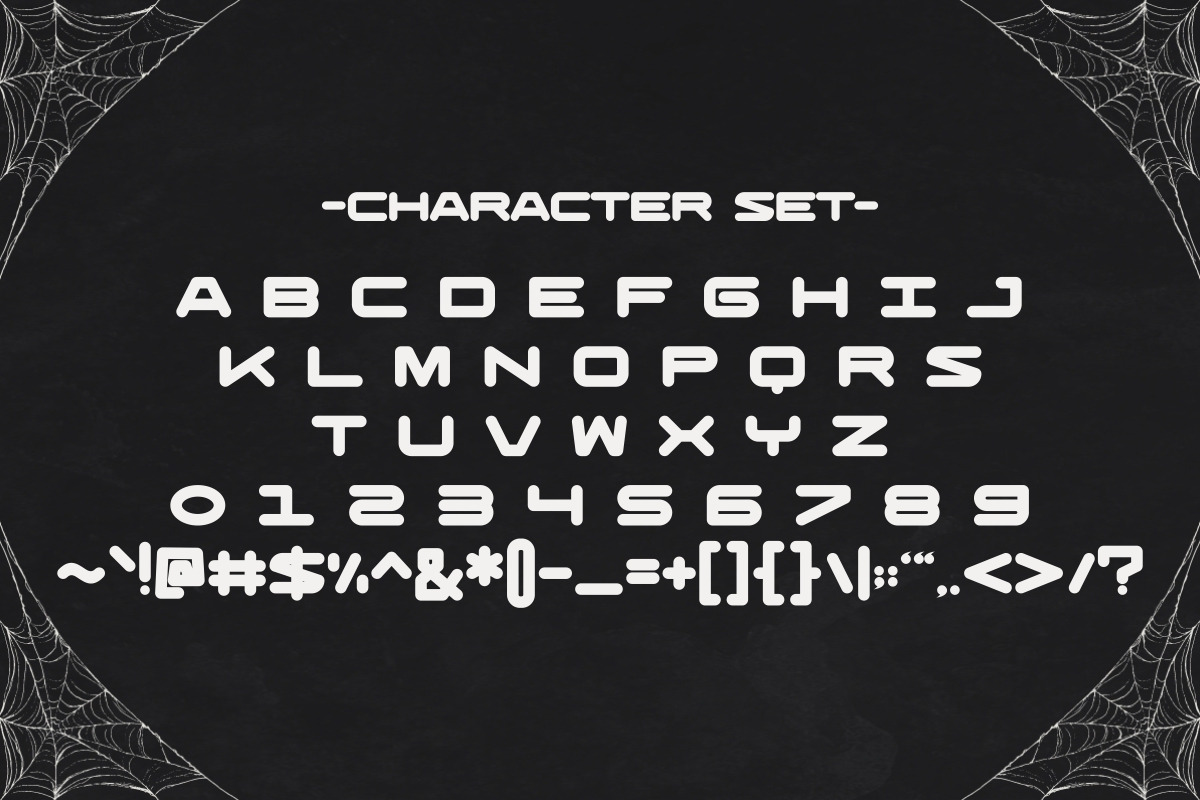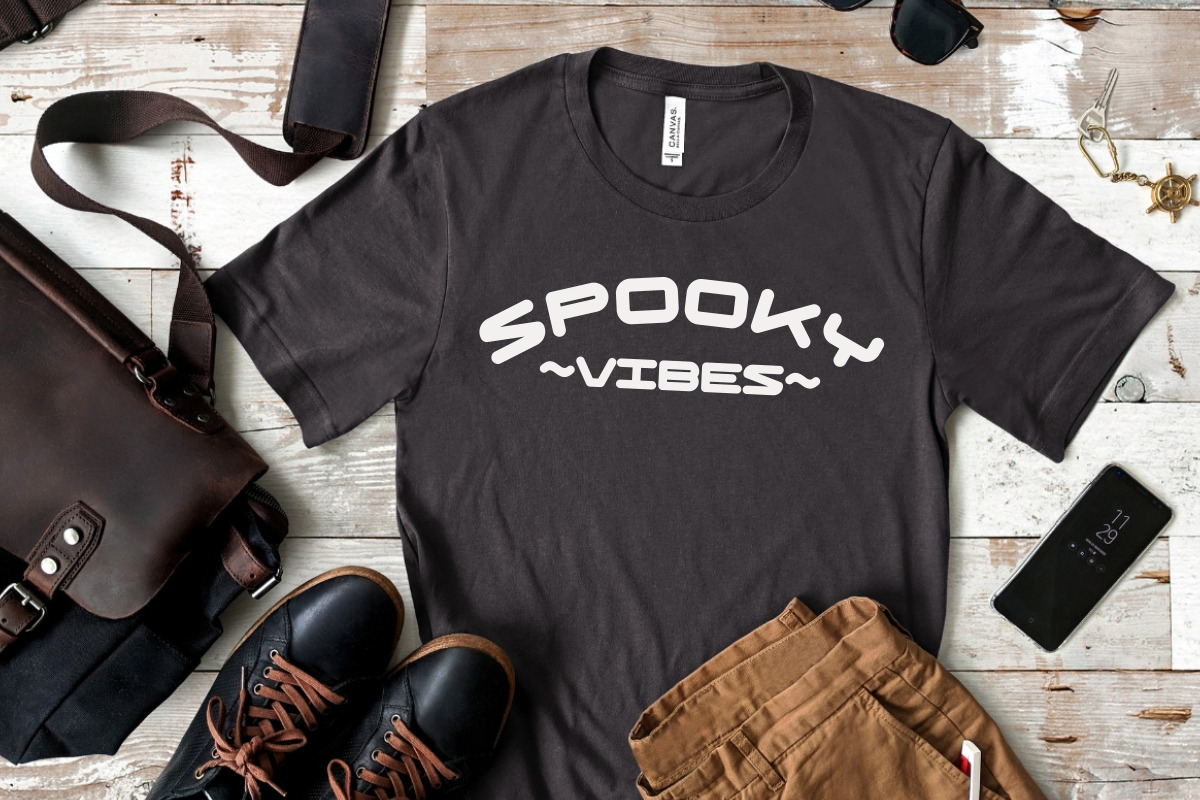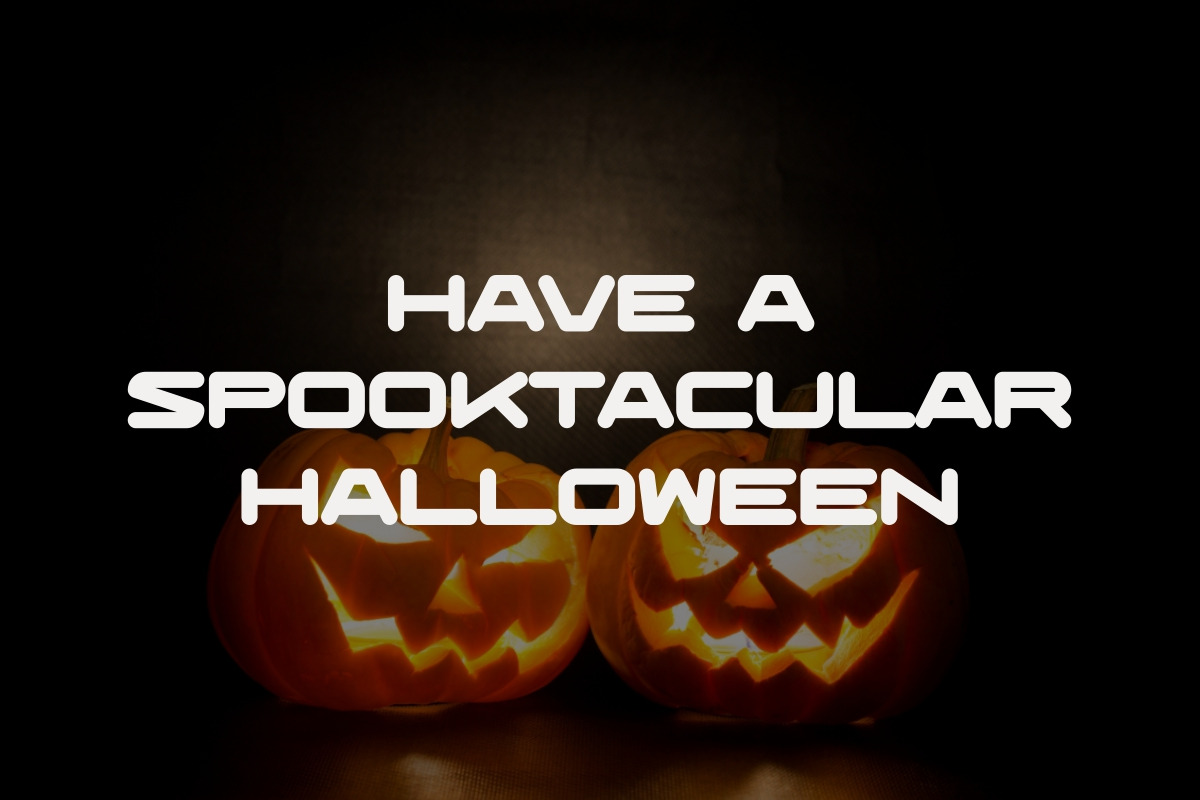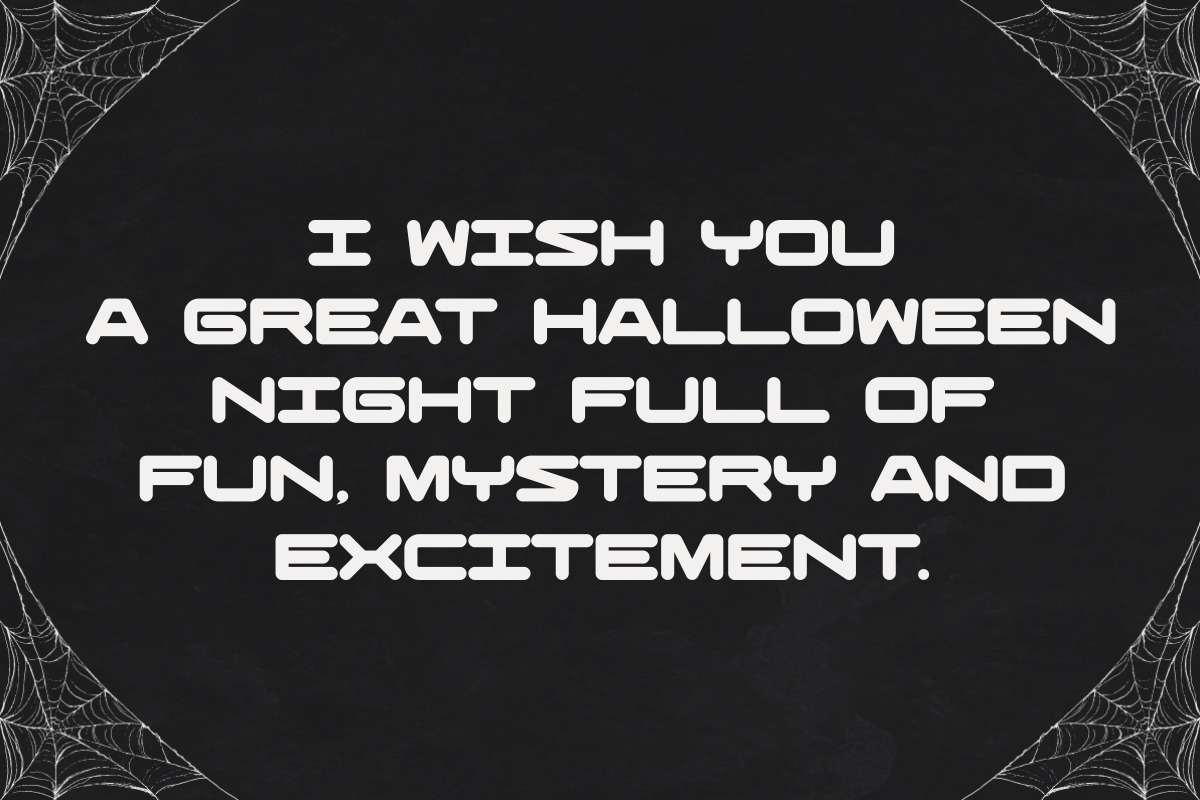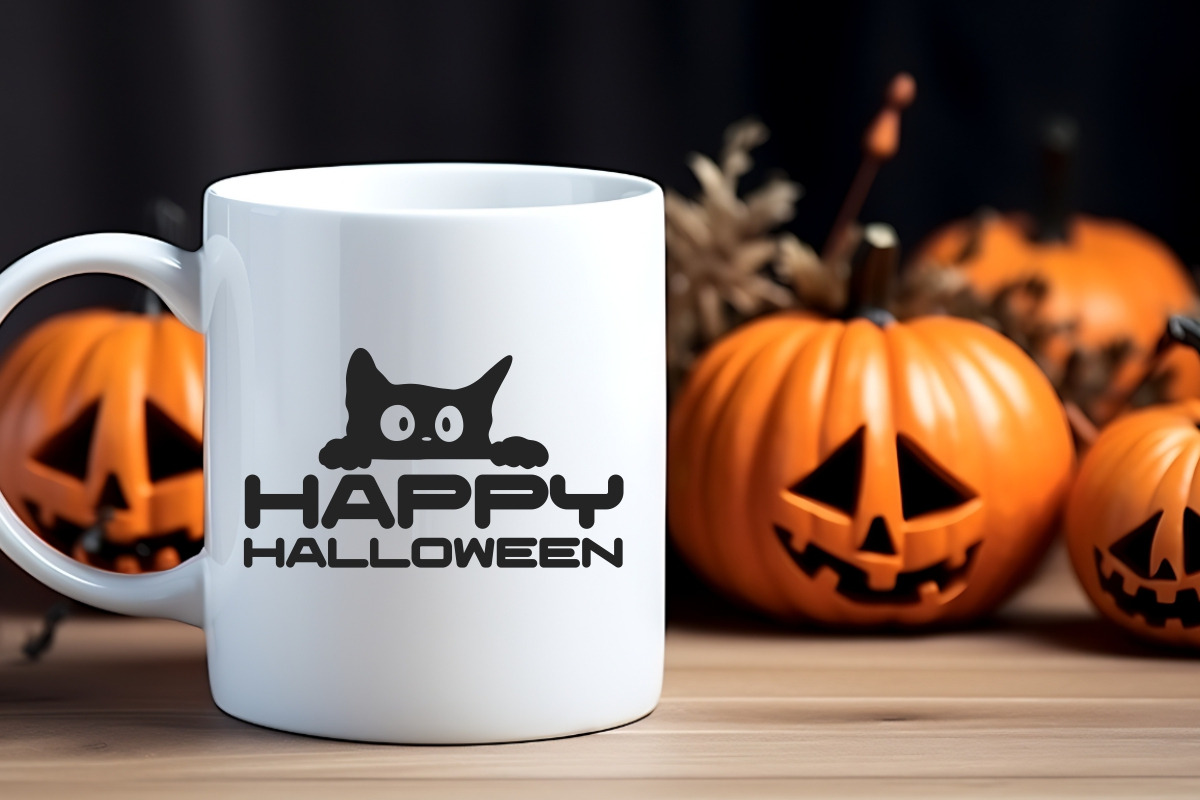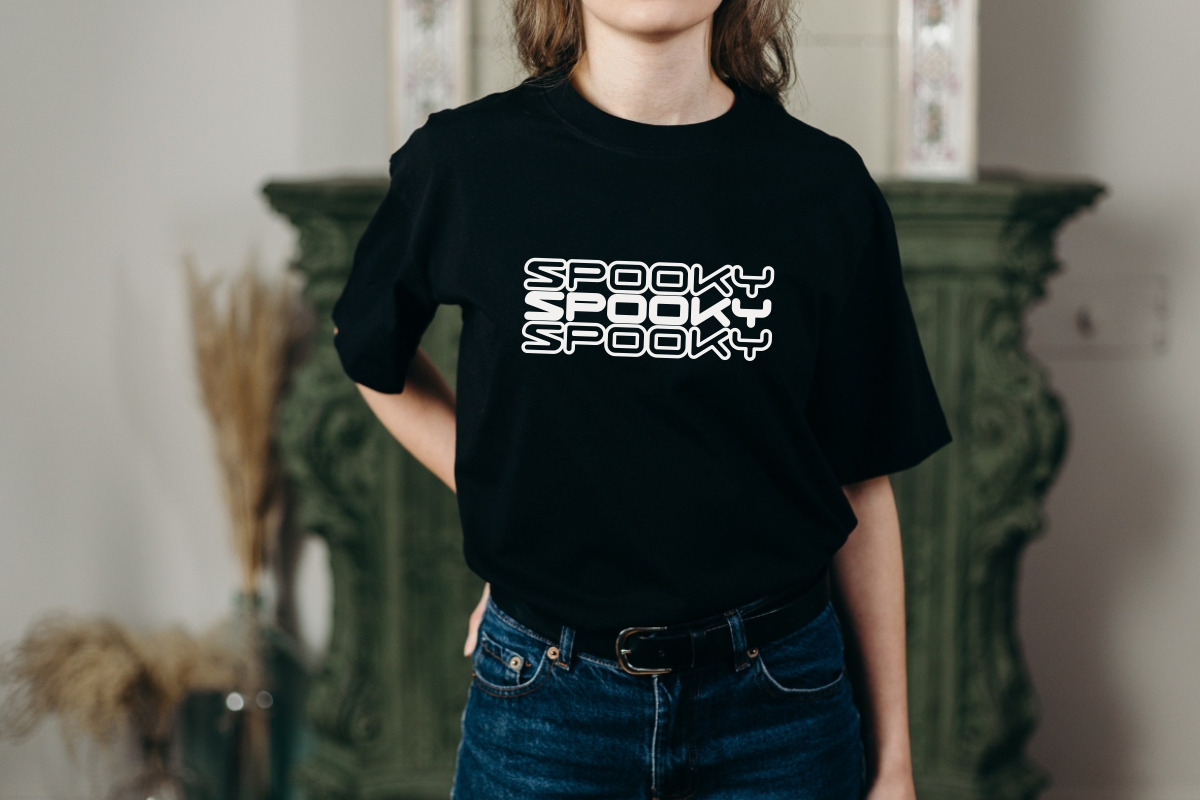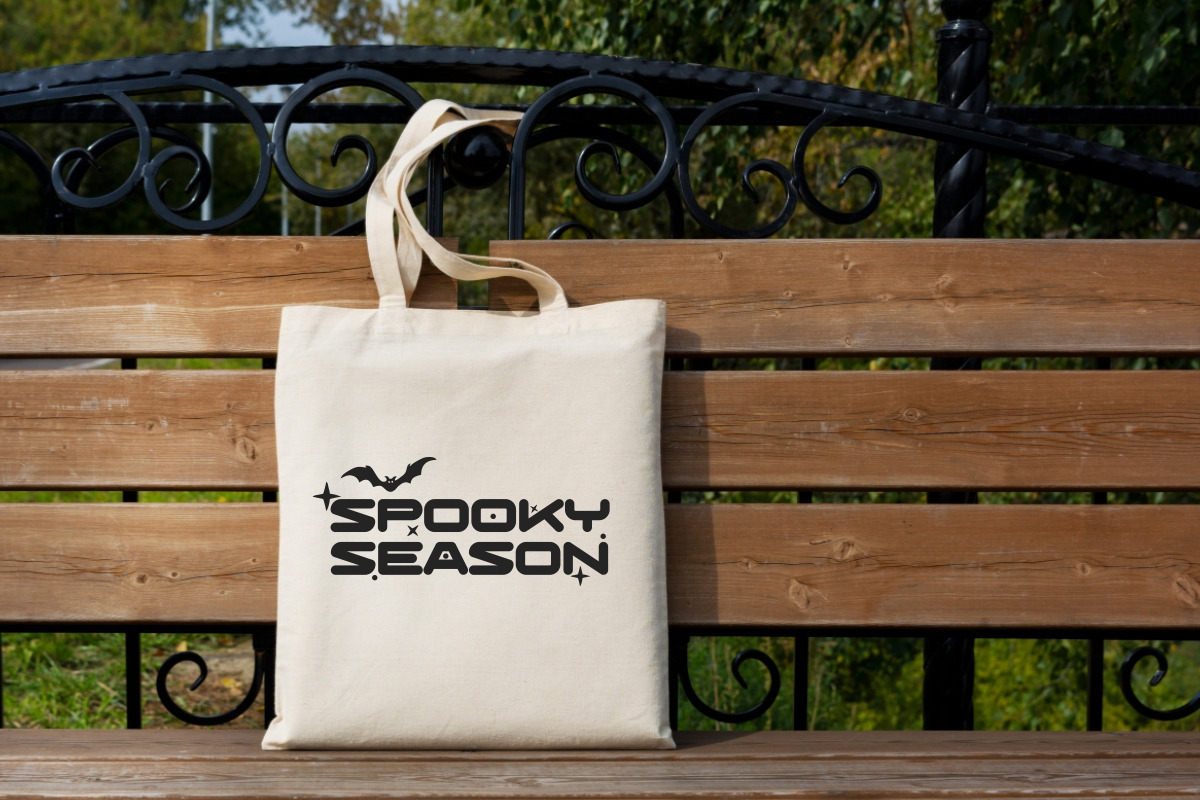
Simple Pumpkin - Playful Sans
Simple Pumpkin is a bold and clean playful sans serif inspired by a blend of pumpkin seamless pattern and Christmas celebrations. This font perfect for quotes, birthday cards, Halloween party invitations and apparel designs like t-shirts. It's also works great for hocus pocus tumbler, mugs and tote bags.